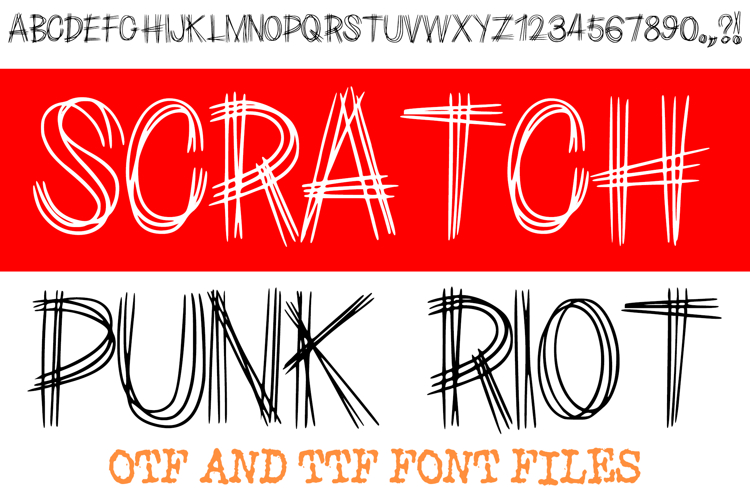
Scratch Punk Riot Lettering ABC Font Typeface Alphabet OTF
Unleash your untamed creative spirit with Scratch Punk Riot Font! This powerful and expressive typeface captures the raw, spontaneous energy of hand-drawn rebellion, featuring bold, slightly irregular letterforms aggressively marked with chaotic, scratched lines. It's more than just a font; it's a defiant shout, designed to inject an immediate, edgy, and authentic grunge attitude into any creative project.
Each character in Scratch Punk Riot Font is crafted with a sense of urgency and raw emotion, showcasing a unique internal texture of scribbled, scratched lines that give it a distinctive, unpolished appeal. This makes it ideal for crafting impactful headlines, punk band logos, protest art, urban streetwear designs, zine layouts, or any project that demands a powerful, anti-establishment aesthetic.
Whether you're aiming for a hardcore punk vibe, a raw street art feel, a vintage DIY aesthetic, or simply a fiercely unique display, this font delivers with uncompromising style. Its clear yet distressed form ensures readability while injecting an artistic chaos that stands out dramatically from pristine, conventional typography.
If you're looking to infuse your designs with a sense of rebellion, genuine texture, and undeniable street credibility, Scratch Punk Riot Font is your ultimate tool. Join the creative uprising and make your mark!